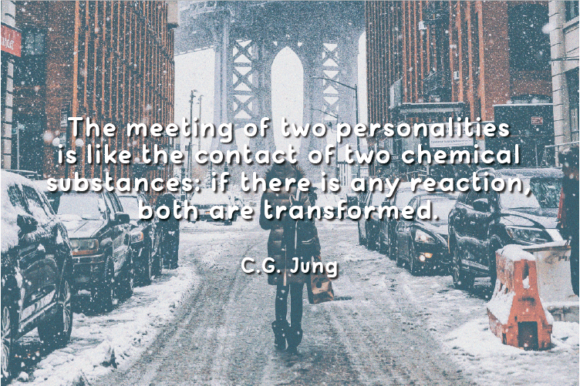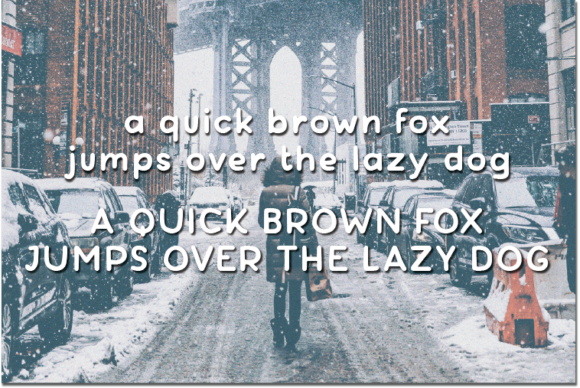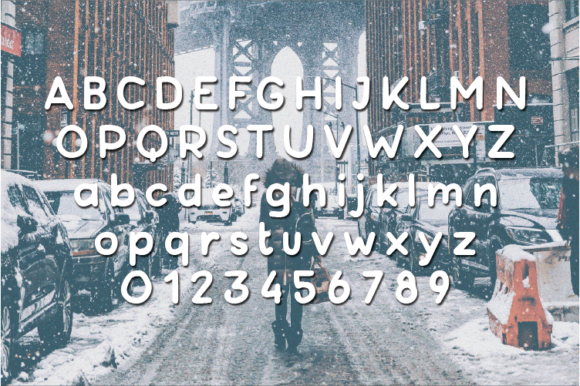
Lovely Snow Font
About Lovely Snow Font
Lovely Snow is a beautiful and friendly handwritten font. The curves in each arrangement make it look unique and natural. This font is perfect for any design that has a happy vibe to it. It also looks good when used on quotes, diaries, books, posters, and invitations.